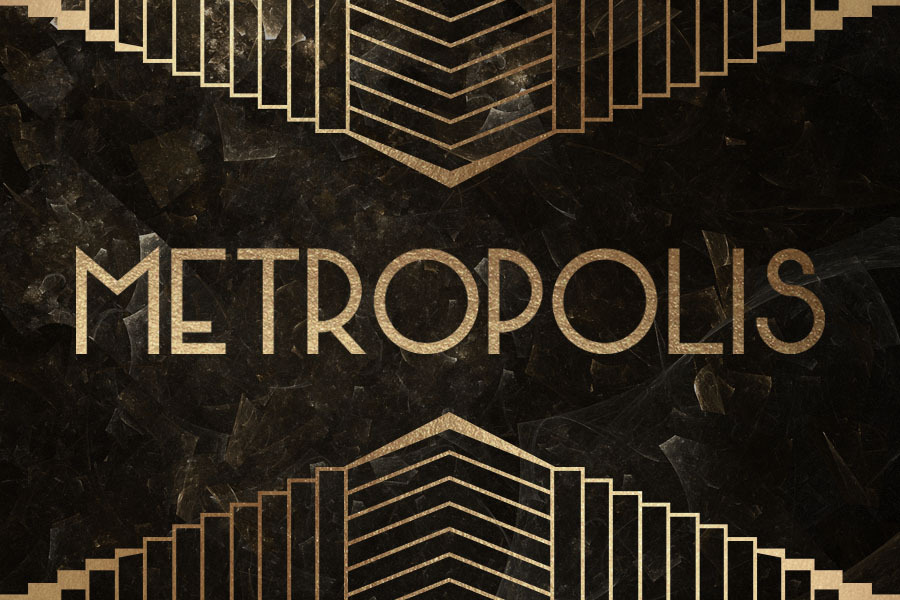
Metropolis Typeface
Metropolis is an art-deco typeface with uppercase letters, numbers and punctuation. Toggle caps lock to use alternate characters.
It also includes 50+ art deco themed ornaments and 3 gold textures. The cover texture is not included.
I purchased the Metropolis Typeface for a special project on a very short timeline. Both the lettering and ornaments are as beautiful and as complete as advertised, and the package as a whole gave me no trouble upon installation. Creating variations in fill and in letter scale has been effective and straightforward as well in this clean, crisp font. The Art Deco style is legible, and achieves the 'Roaring Twenties' aesthetic without looking cliché.